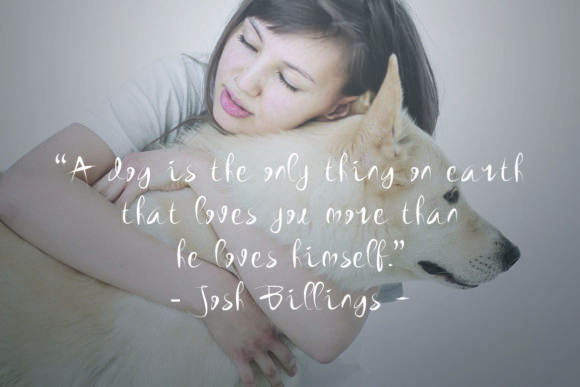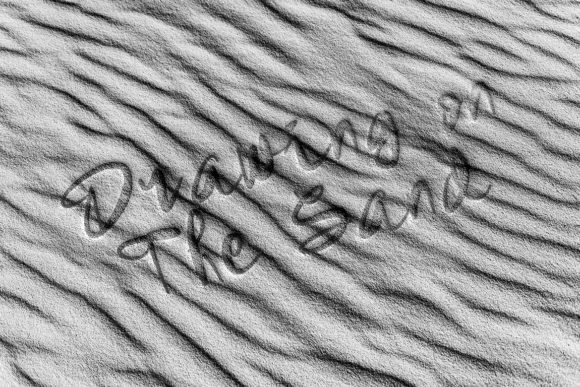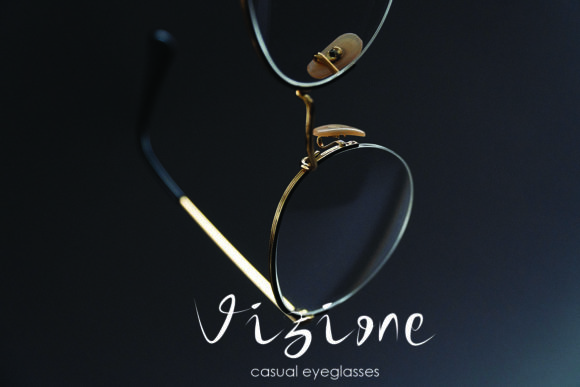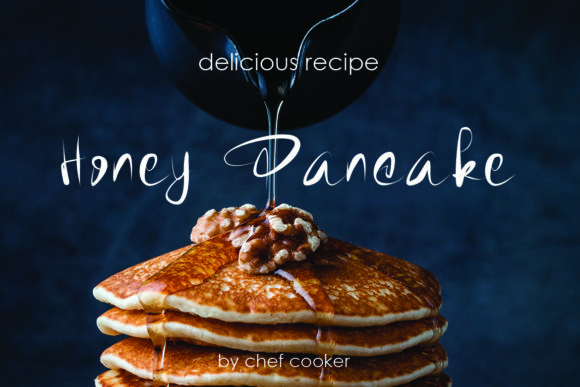
Introducing El Padalino Font: The Perfect Blend of Authenticity and Modernity
In the world of typography, fonts play a crucial role in bringing a design to life. A well-chosen font can elevate a project from ordinary to extraordinary, making it essential for designers and crafters to have access to high-quality, unique, and versatile fonts. One such font that has been making waves in the design community is El Padalino Font. This authentic, bold, and contemporary handwritten font is designed to inspire and add a touch of personality to any design project.
What Makes El Padalino Font Stand Out?
El Padalino Font boasts a one-of-a-kind style that sets it apart from other fonts. Its unique charm lies in its perfect blend of traditional and modern elements, making it an excellent choice for designers looking for a font that can add a touch of sophistication and elegance to their projects. Whether you’re working on a branding project, a website design, or a crafting project, El Padalino Font is sure to make a statement.
Key Features of El Padalino Font
- Authentic and Handwritten: El Padalino Font is an authentic handwritten font, giving it a personal and human touch that is hard to replicate with generic fonts.
- Bold and Contemporary: The font’s bold and contemporary style makes it perfect for headlines, titles, and any design element that requires a strong visual impact.
- Unique Charm: El Padalino Font has a unique charm that sets it apart from other fonts, making it an excellent choice for designers looking to add a touch of personality to their projects.
- Versatile: The font’s versatility makes it suitable for a wide range of design projects, from branding and advertising to crafting and DIY projects.
| Font Name | El Padalino Font |